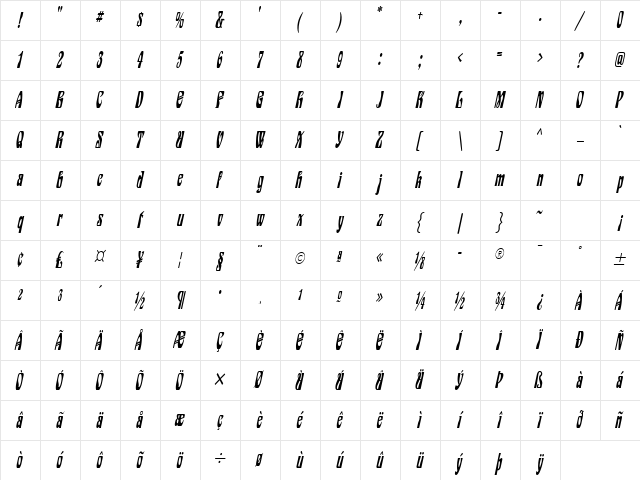
Epic Thin Italic
Epic Thin Family
Design Context for Epic Thin
Epic Thin is a composed and adaptable typeface that performs quietly and consistently across a wide range of design contexts. The slanted form adds forward momentum and visual energy. Its slender proportions lend an understated elegance to any composition.
Pro Tip: Use Epic Thin for emphasis, pull quotes, and subheadings where its slanted energy can add rhythm to the layout.